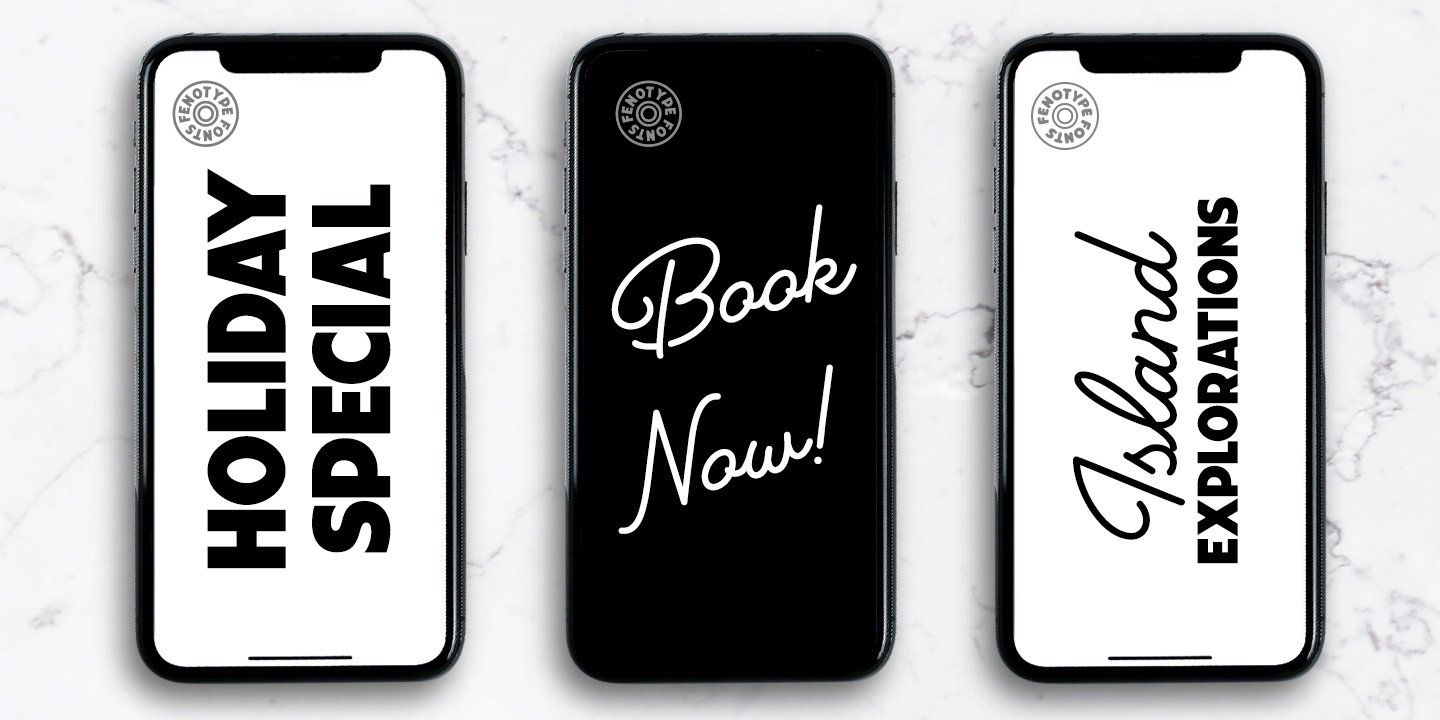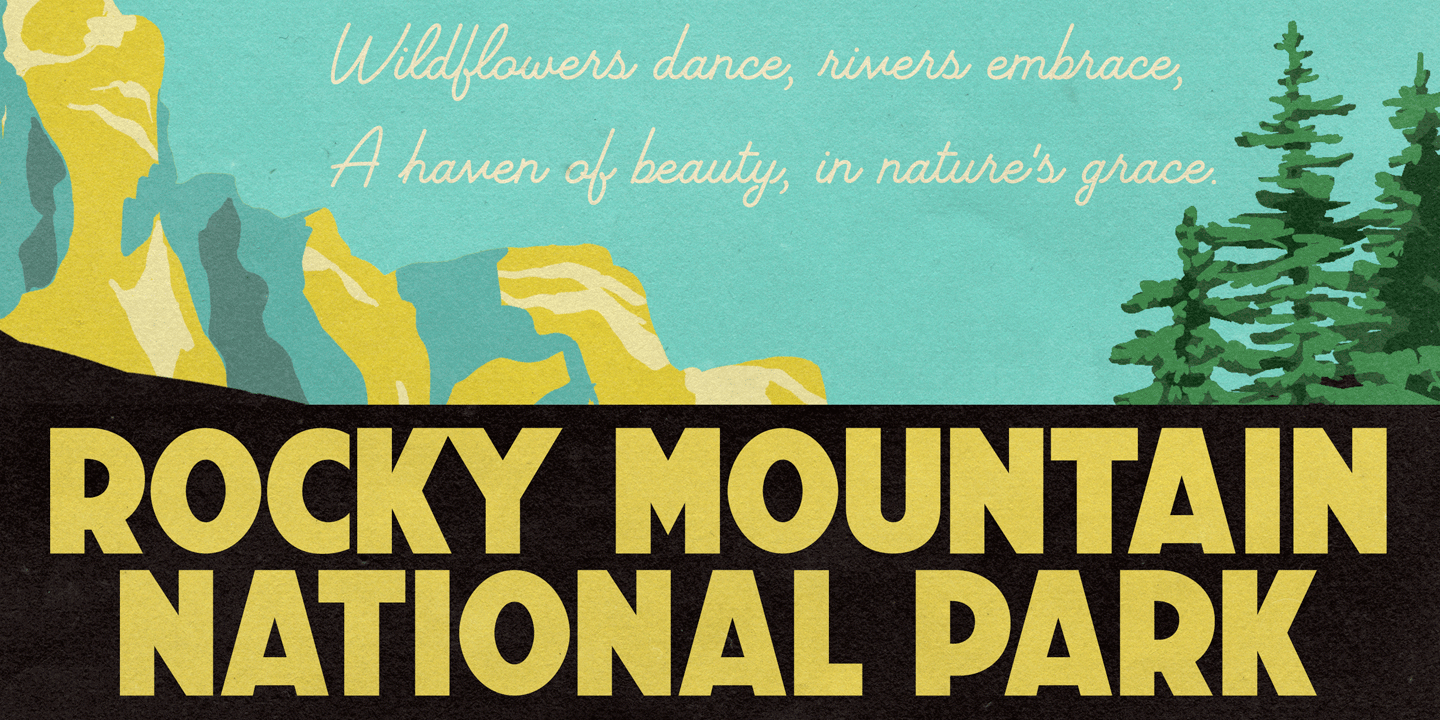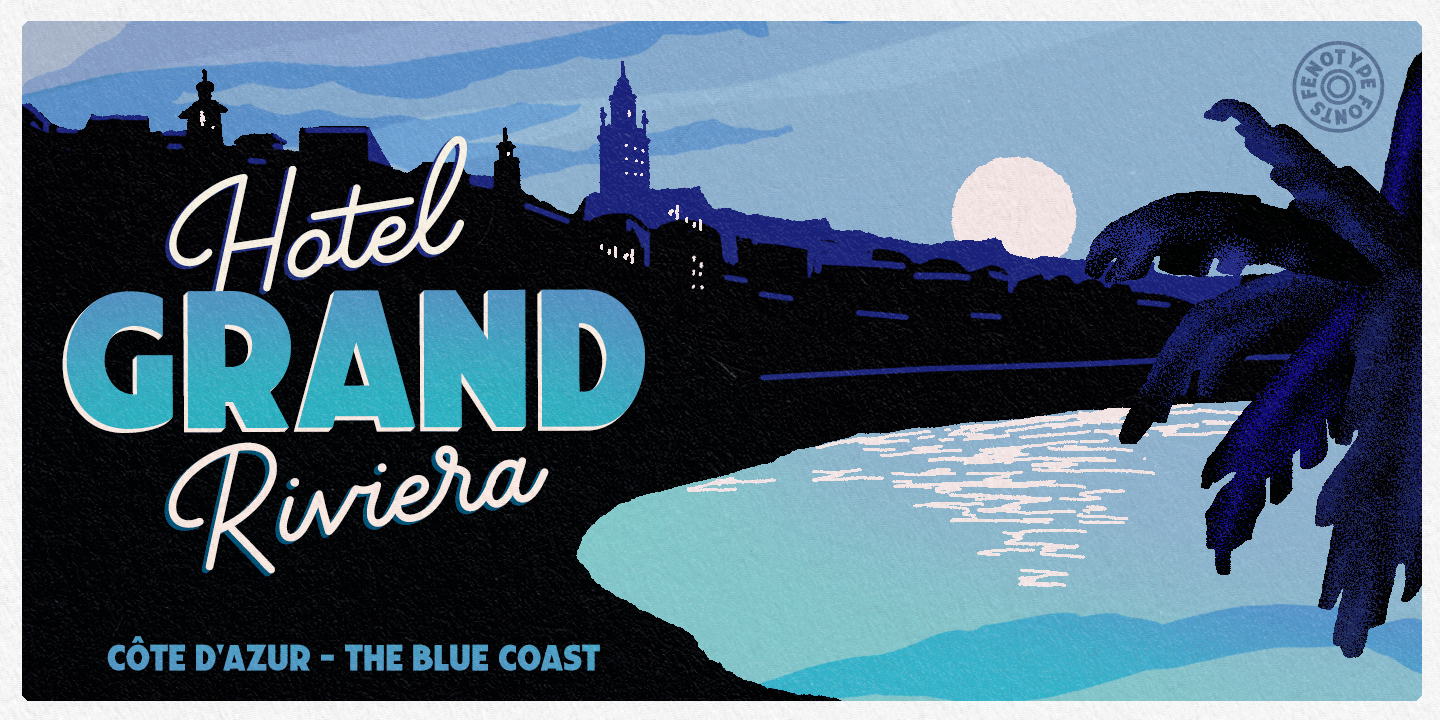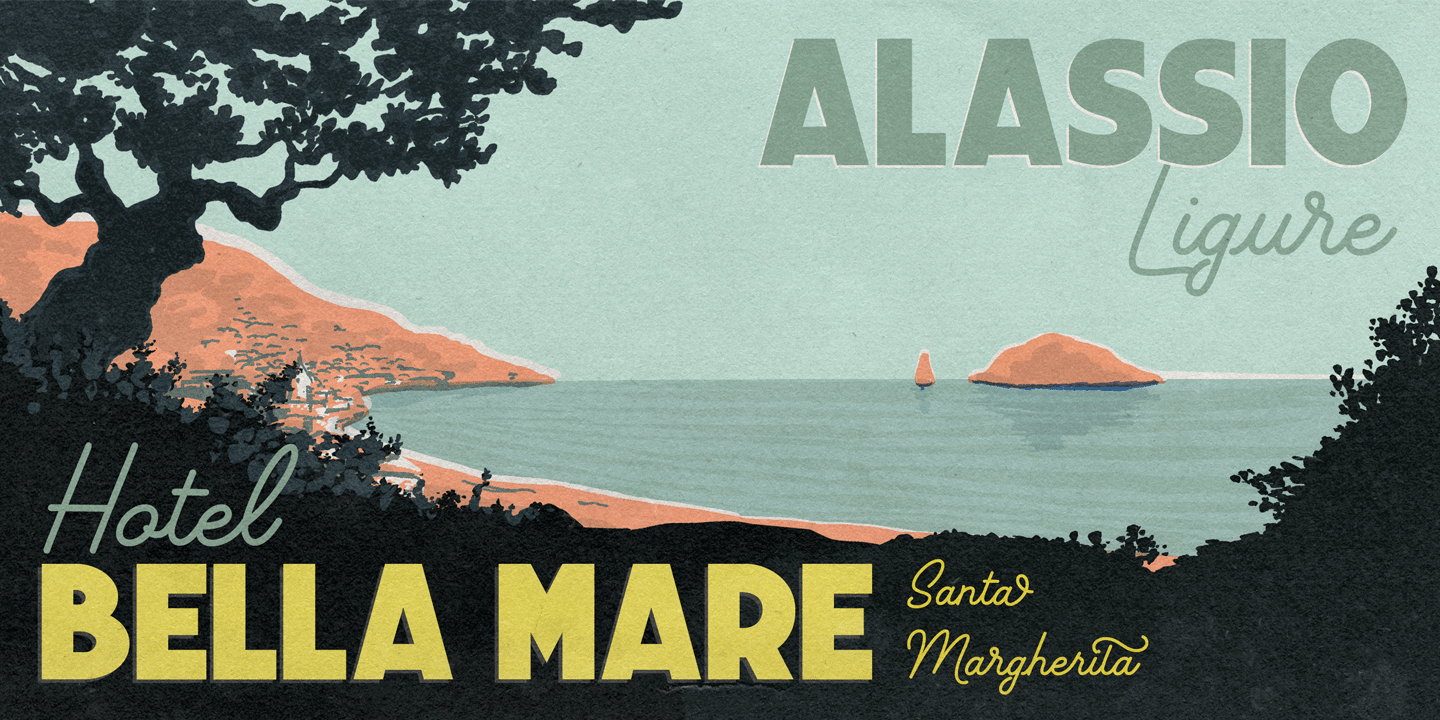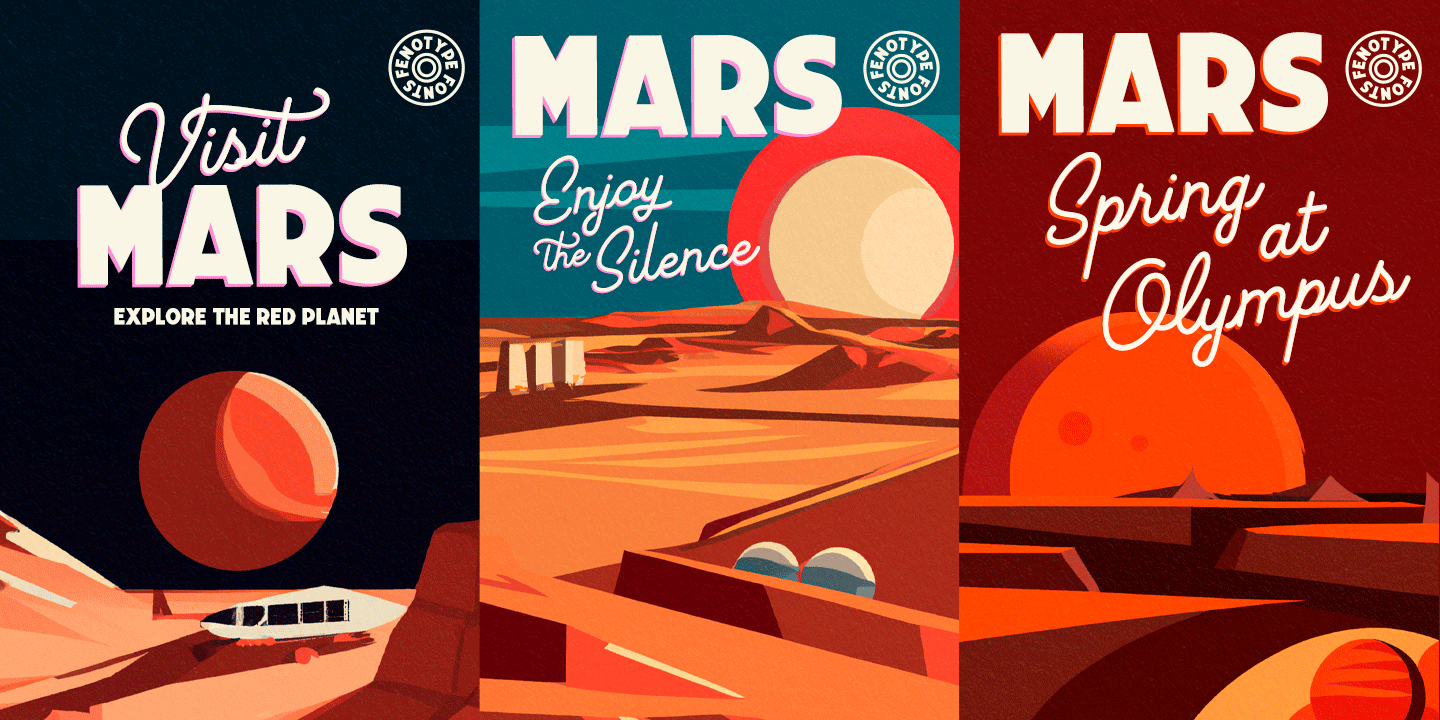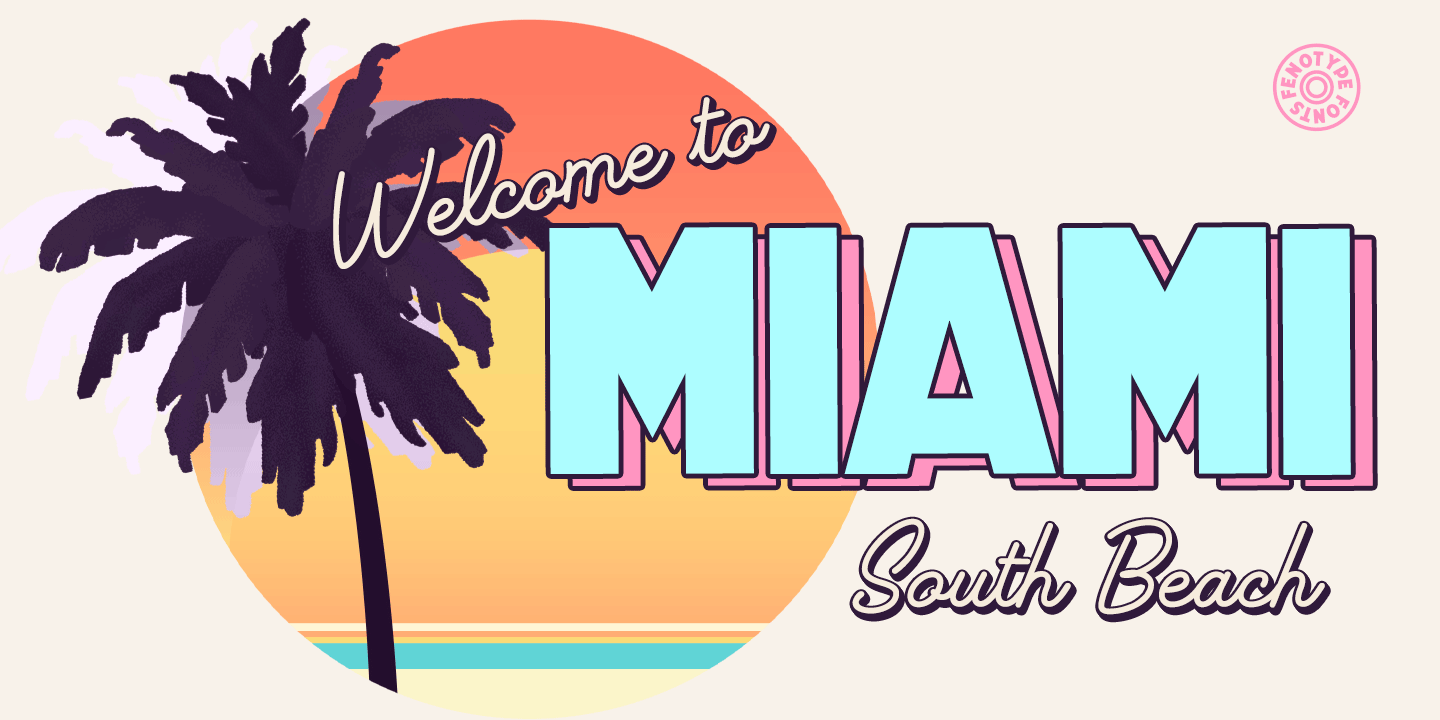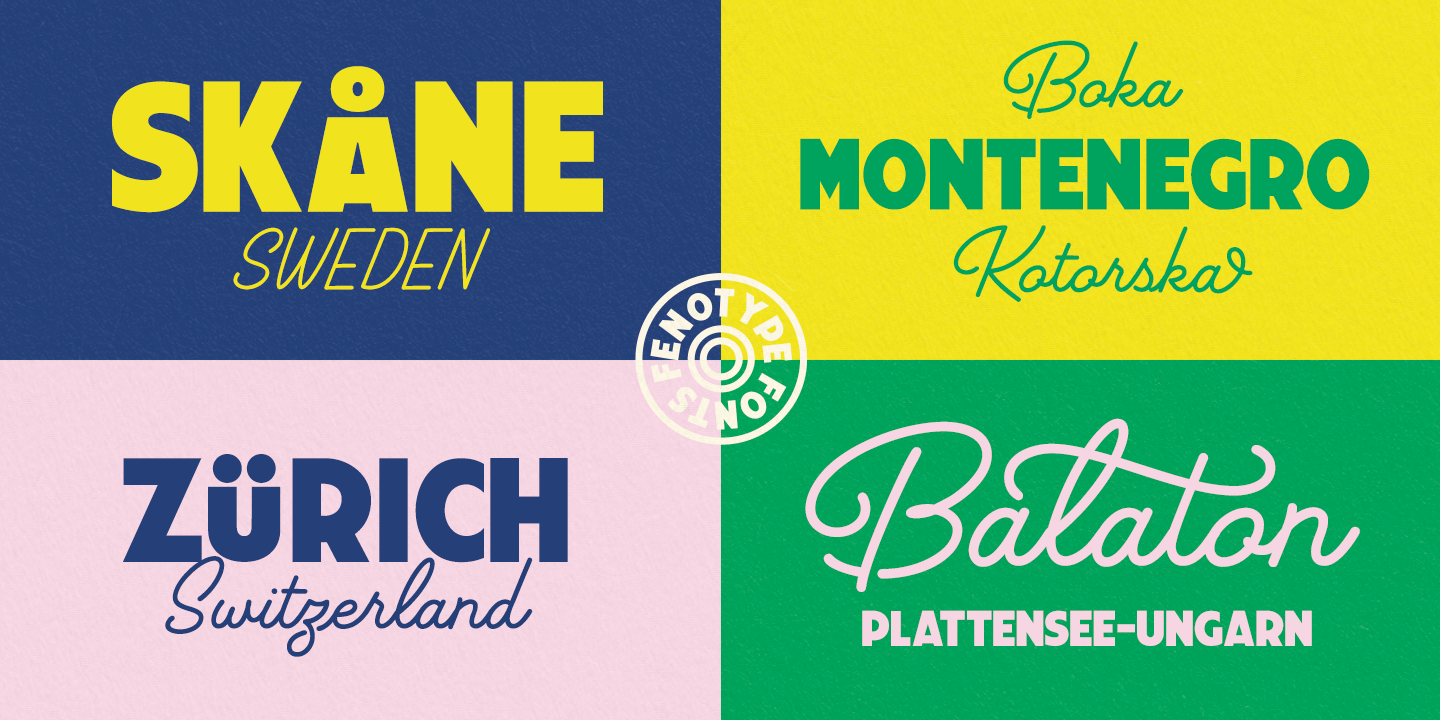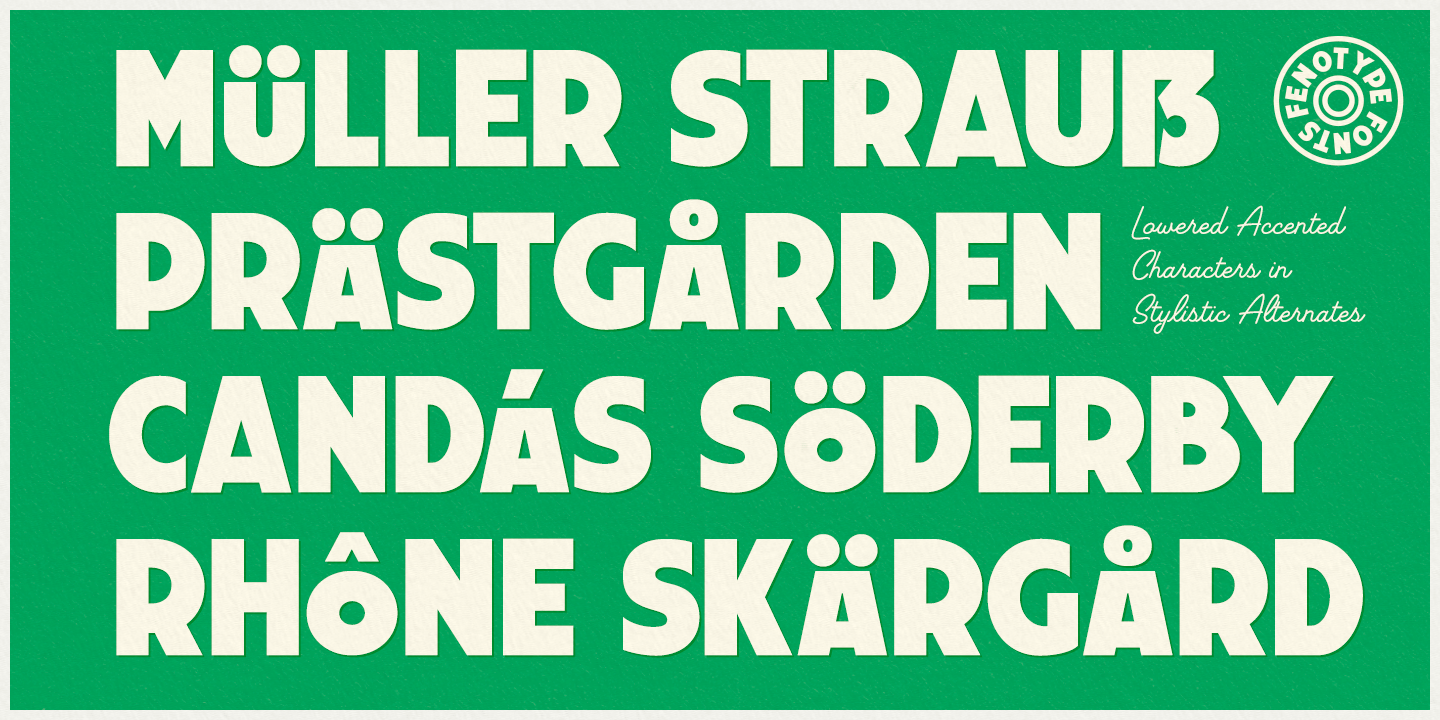
About Travel Poster
Inspired and named after last century\’s travel posters, Travel Poster is a font duo with a monoline Script with small x-height and a bulky vernacular Sans designed to play together. Script is equipped with several OpenType features such as Swash and…